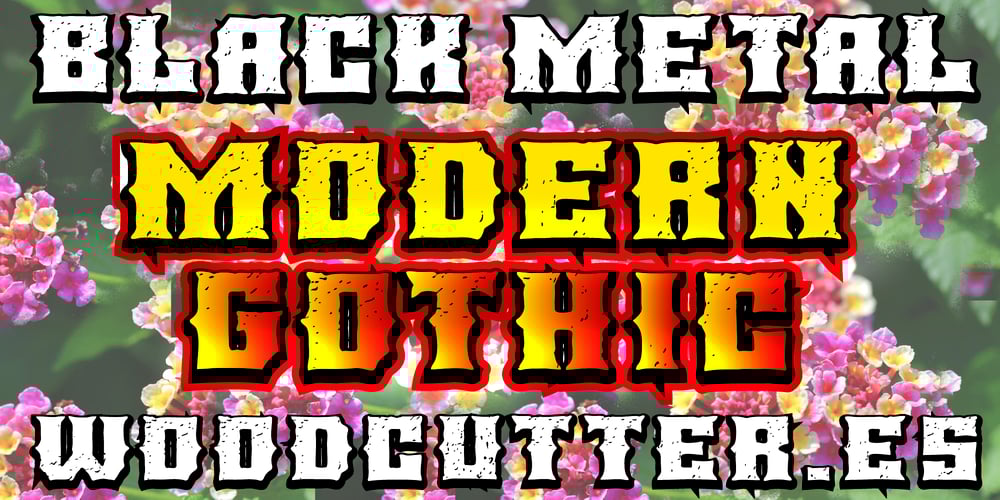
Black Metal Font Family was designed by Jordi Manero and published by Woodcutter. Black Metal contains 1 styles and family package options. “Black Metal” is a modern gothic typeface that combines dark elegance with a touch of dirt and a resolutely hard appearance. Its letters have sharp outlines and a worn texture, evoking the brutality of the genre it draws inspiration from. The presence of shadows adds depth and drama, making each character stand out forcefully. Ideal for designs seeking a strong visual impact and a distinctive style, “Black Metal” is perfect for concert posters, album covers, and any project needing a touch of sophisticated darkness and aggression.